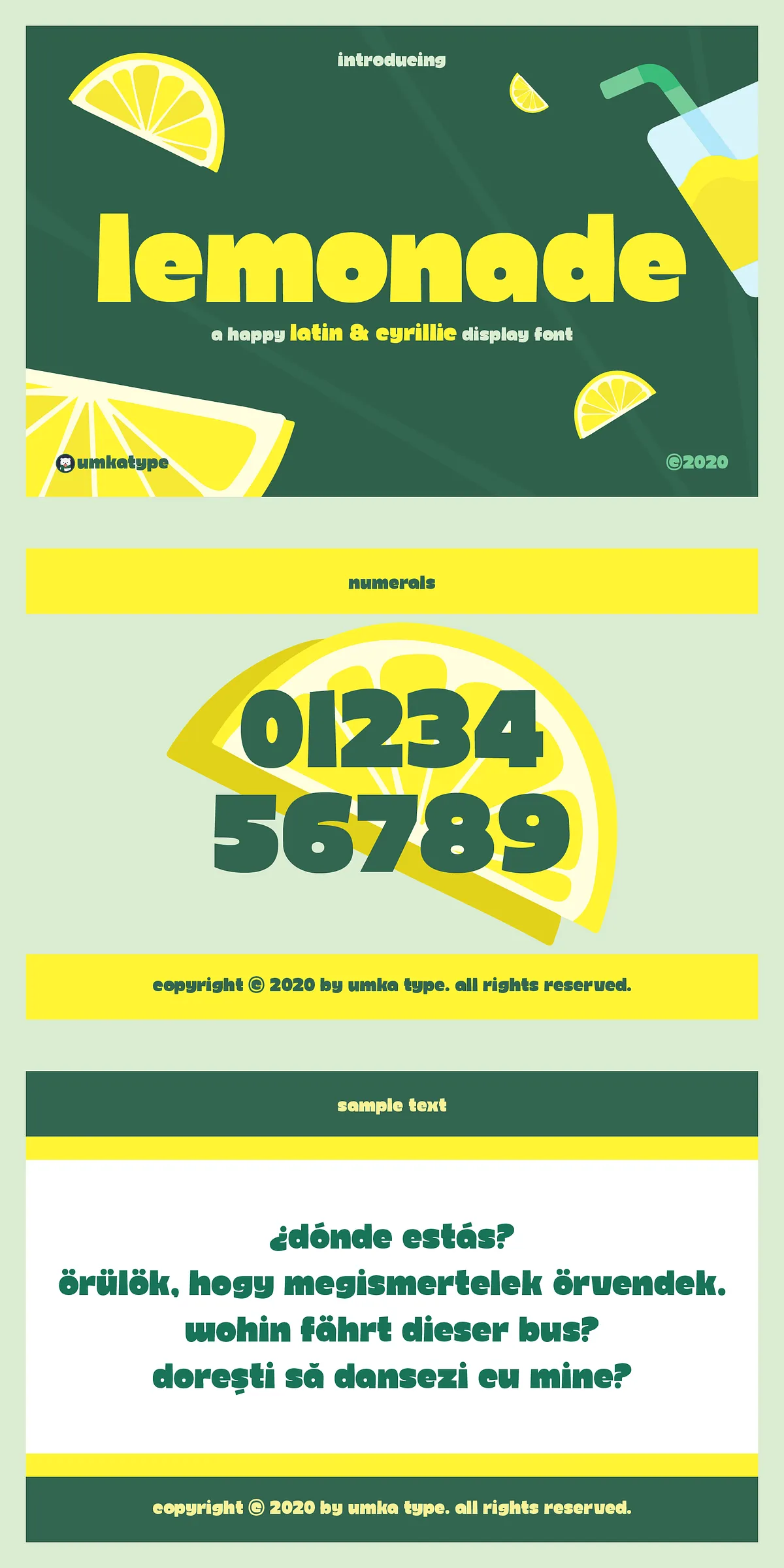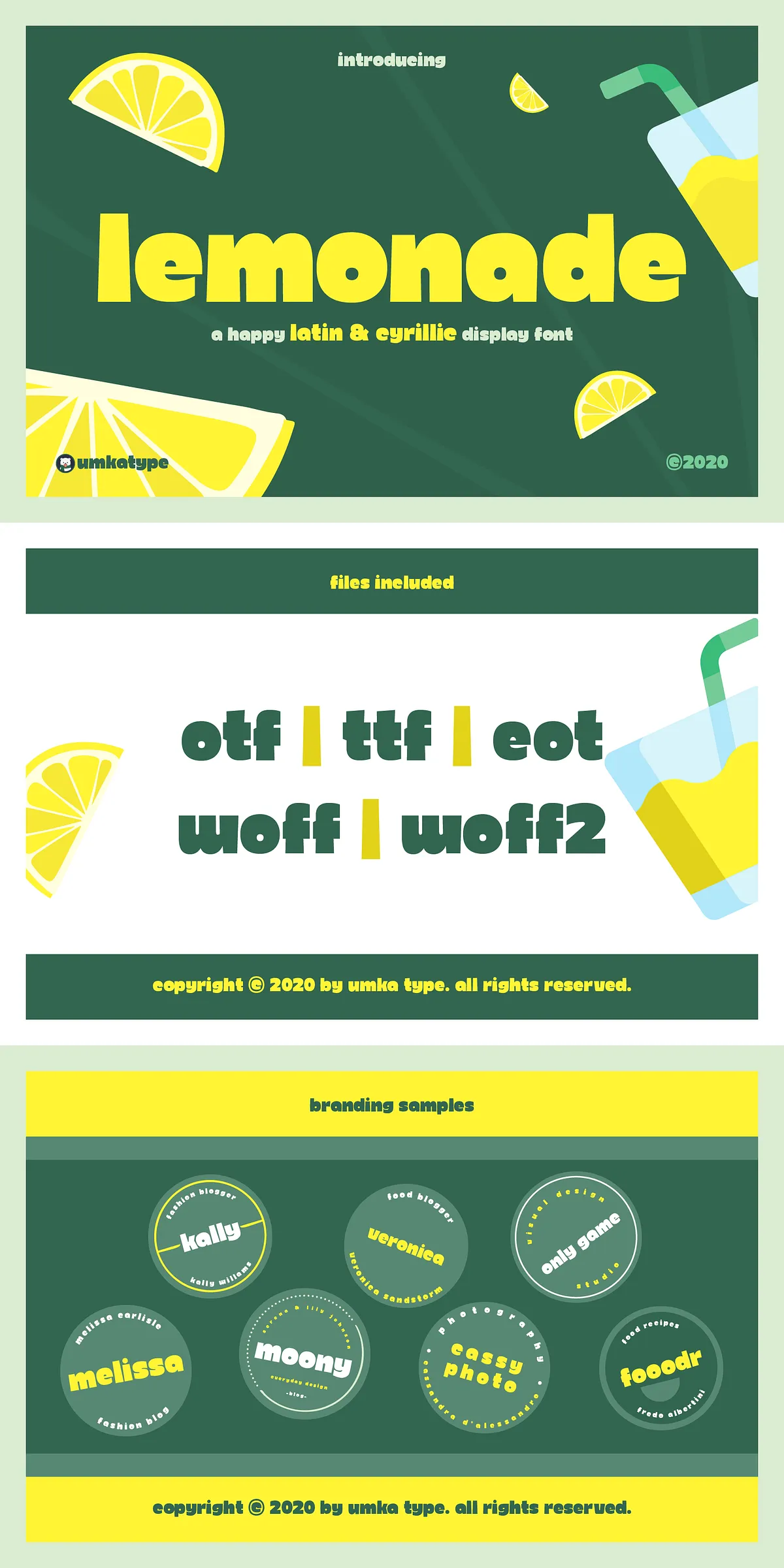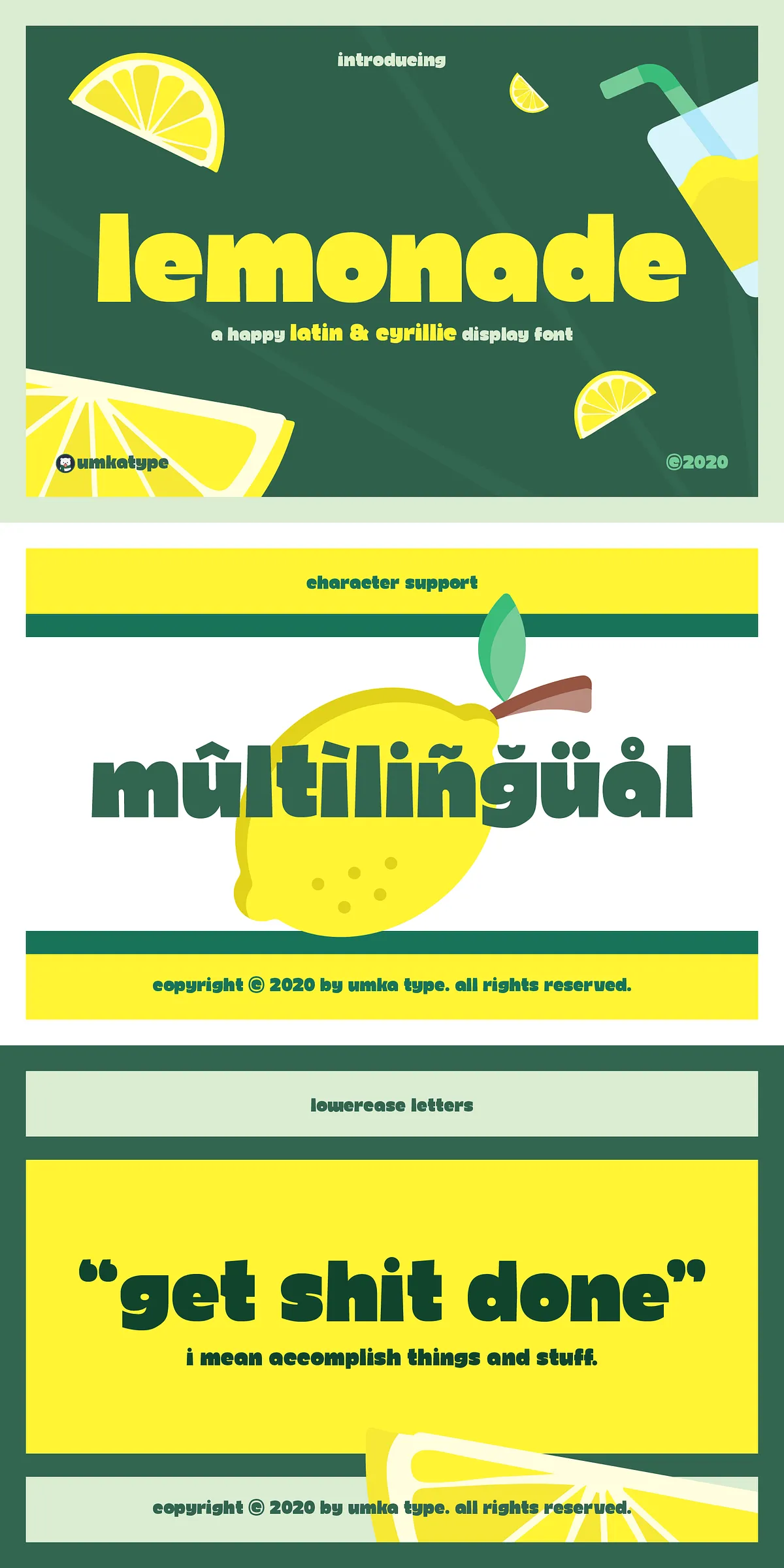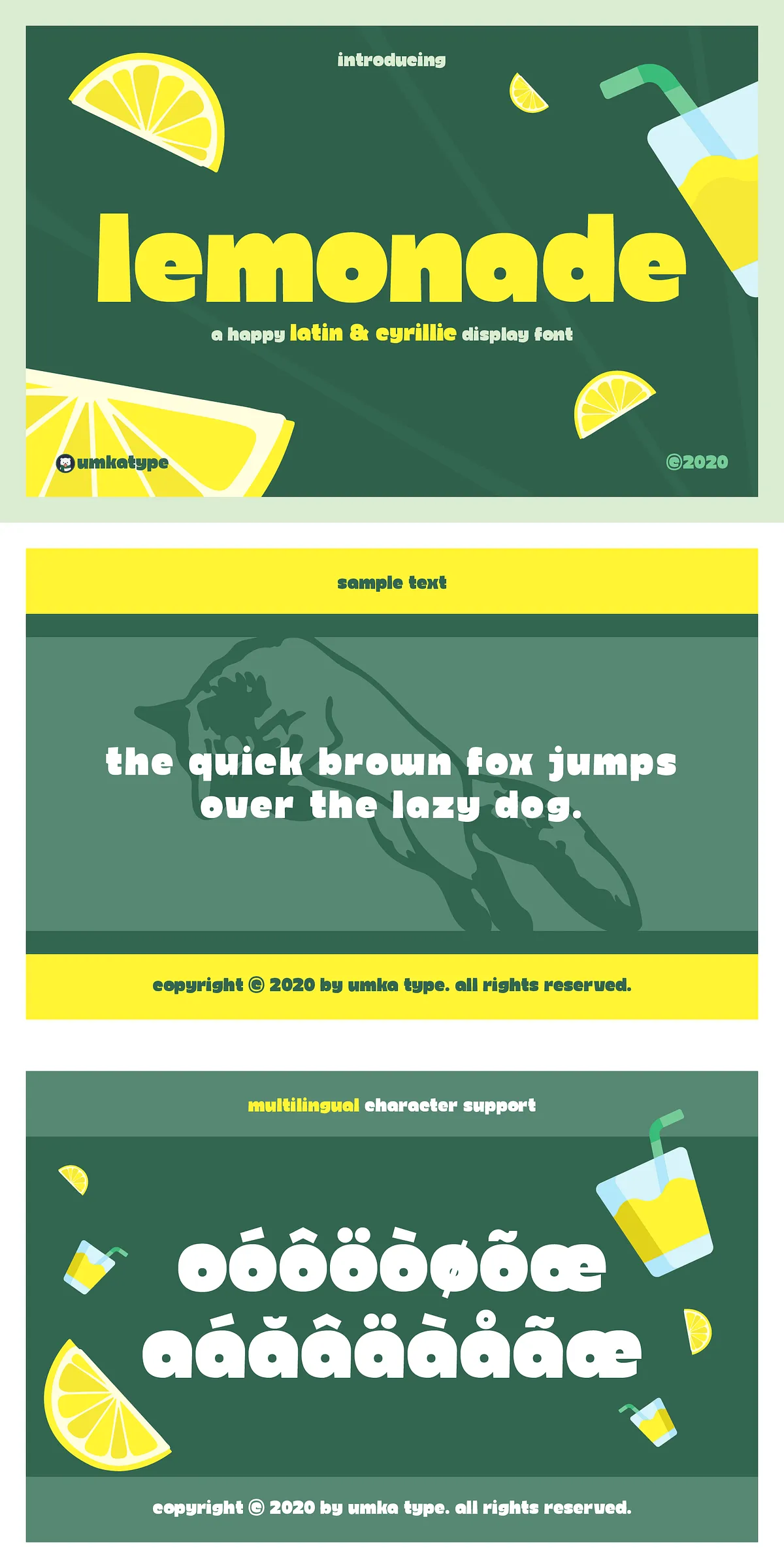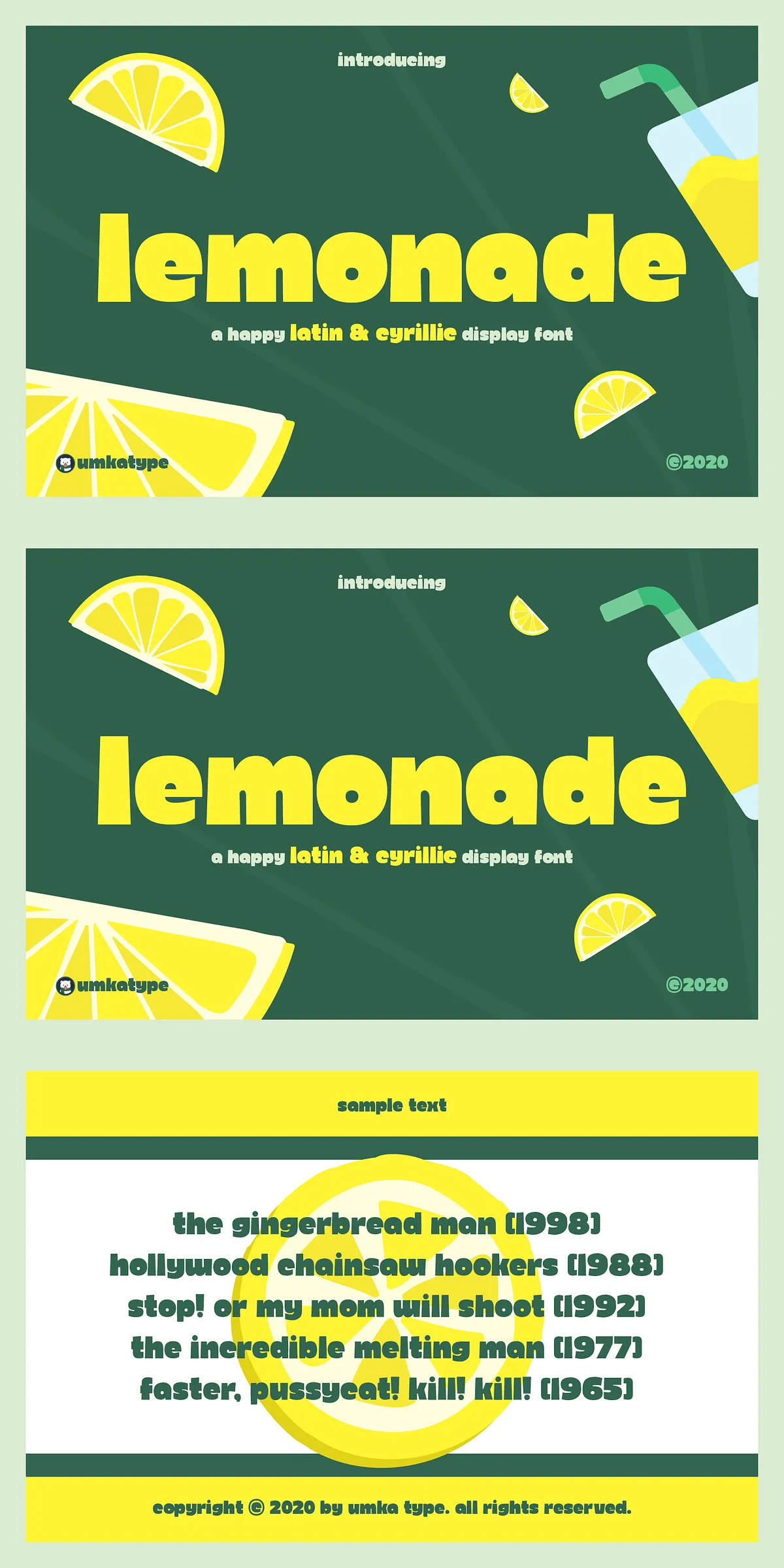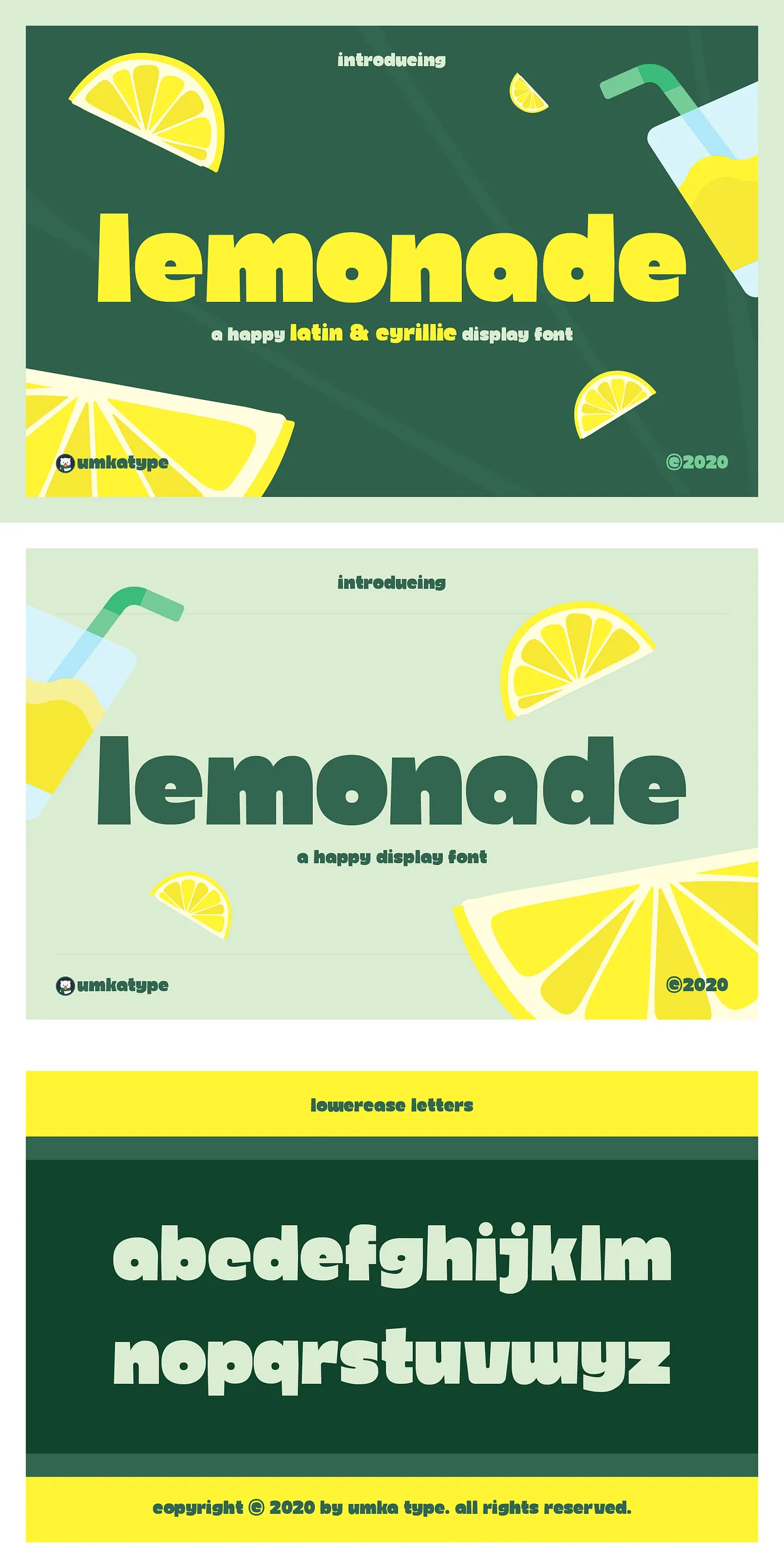
Lemonade delivers a bright, playful voice that designers can use to energize projects across digital and print. Built with careful attention to character shapes and readability, Lemonade combines cheerful proportions with reliable technical support. It ships in standard desktop formats and webfont files so you can deploy it instantly for apps, websites, social media, and game interfaces. The family’s multilingual coverage and clear, friendly letterforms make Lemonade a go-to choice when you want approachable personality without sacrificing clarity.
Design Characteristics And Visual Personality Of Lemonade
Lemonade communicates optimism through rounded terminals, open counters, and a lively rhythm between letters. The display-oriented shapes amplify headlines and UI labels while retaining legibility at smaller sizes when used with appropriate tracking. Designers will appreciate the font’s consistent stroke color and balanced spacing: the forms feel energetic but not chaotic, which makes Lemonade suitable for brand identities, promotional banners, and playful packaging. The typeface reads confidently in color-filled environments and pairs well with neutral sans-serifs for body text.
How Lemonade Strengthens Brand Communication
Use Lemonade to project friendliness and warmth. The font strengthens brand tone by making headlines feel conversational and by helping calls-to-action stand out without overwhelming the layout. For gaming interfaces, Lemonade helps guide players’ attention to scores, buttons, and short instructional text. For web and social content, the typeface amplifies shareable visuals and maintains legibility across screen sizes. In short, Lemonade turns casual concepts into consistent visual language that resonates with diverse audiences.
Multilingual Coverage And Language Support
Lemonade ships with broad language coverage to support global projects. The Extended Latin and Cyrillic alphabets cover many European and regional languages, ensuring typographic consistency when you localize marketing, product UIs, or in-game text. Example supported languages include Afrikaans, Albanian, Bulgarian, Catalan, Croatian, Danish, English, French, German, Indonesian, Italian, Norwegian (Bokmål and Nynorsk), Portuguese, Russian, Spanish, Swedish, and many others. This breadth enables smooth cross-border rollouts and reduces the need for secondary typefaces.
Practical Usage Recommendations And Pairing Tips
Deploy Lemonade for headlines, badges, buttons, and short hero text where friendly expression matters most. Pair it with a neutral sans-serif for long-form copy to preserve contrast and reading comfort. For premium packaging or identity systems, use Lemonade in bold weights for impact and lighter weights for sublabels. When implementing on the web, use the WOFF2 version for the best performance and fallbacks for older browsers.
Why Choose Lemonade For Your Next Project
Lemonade combines an upbeat visual tone with practical features that streamline production. It supports multilingual content, provides industry-standard webfont formats, and arrives with free maintenance and customization options. Whether you design games, build responsive websites, or craft social campaigns, Lemonade empowers you to create lively, approachable experiences that connect with audiences and perform reliably across platforms.